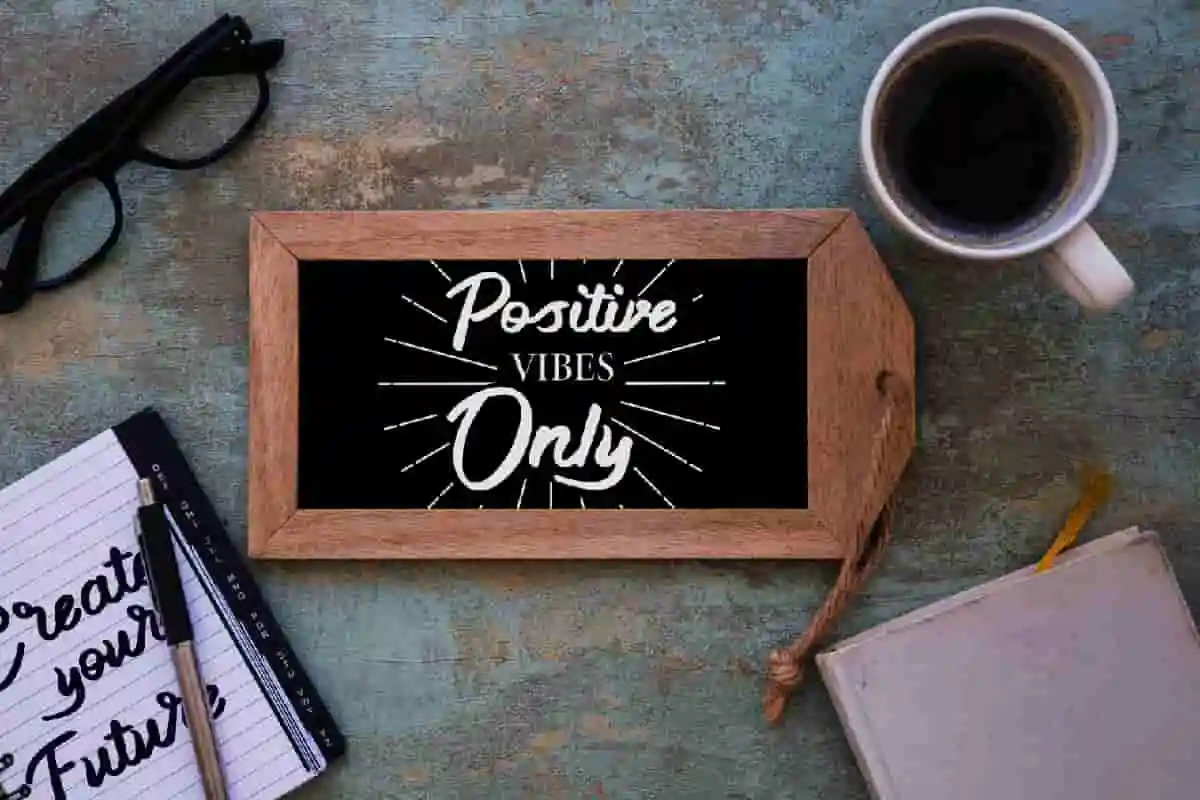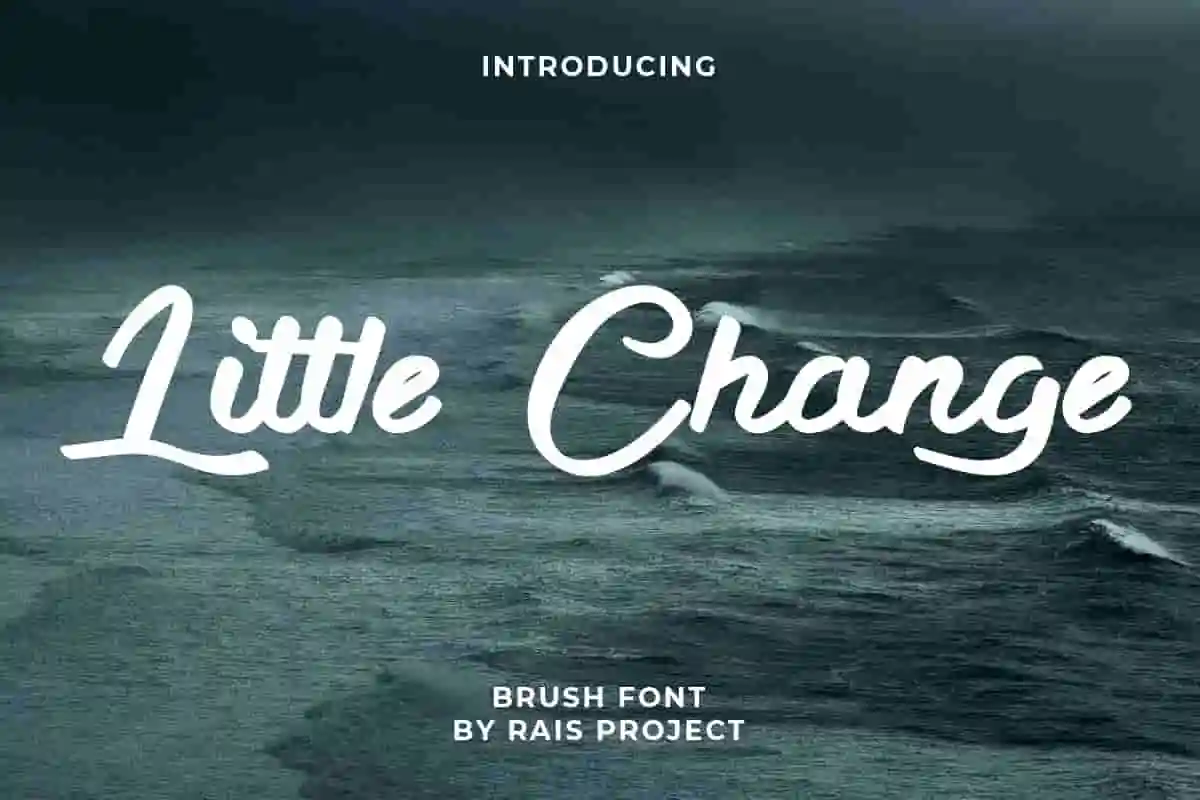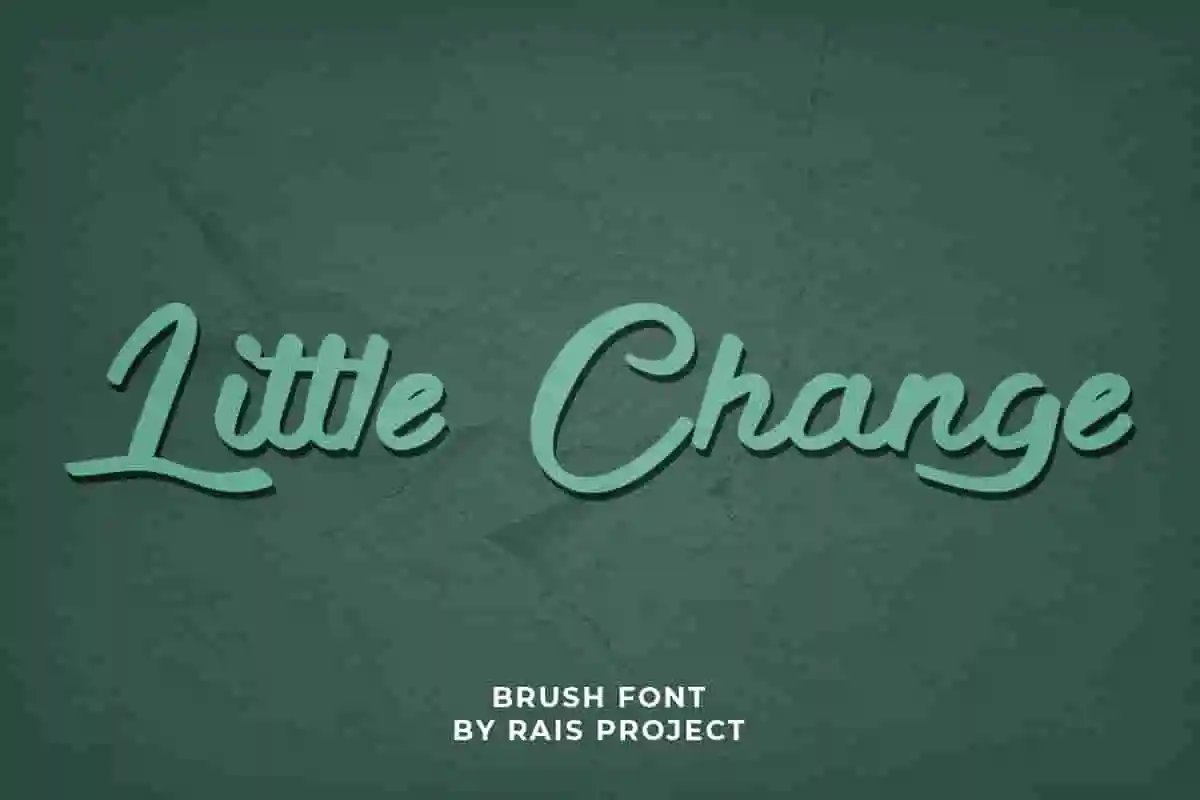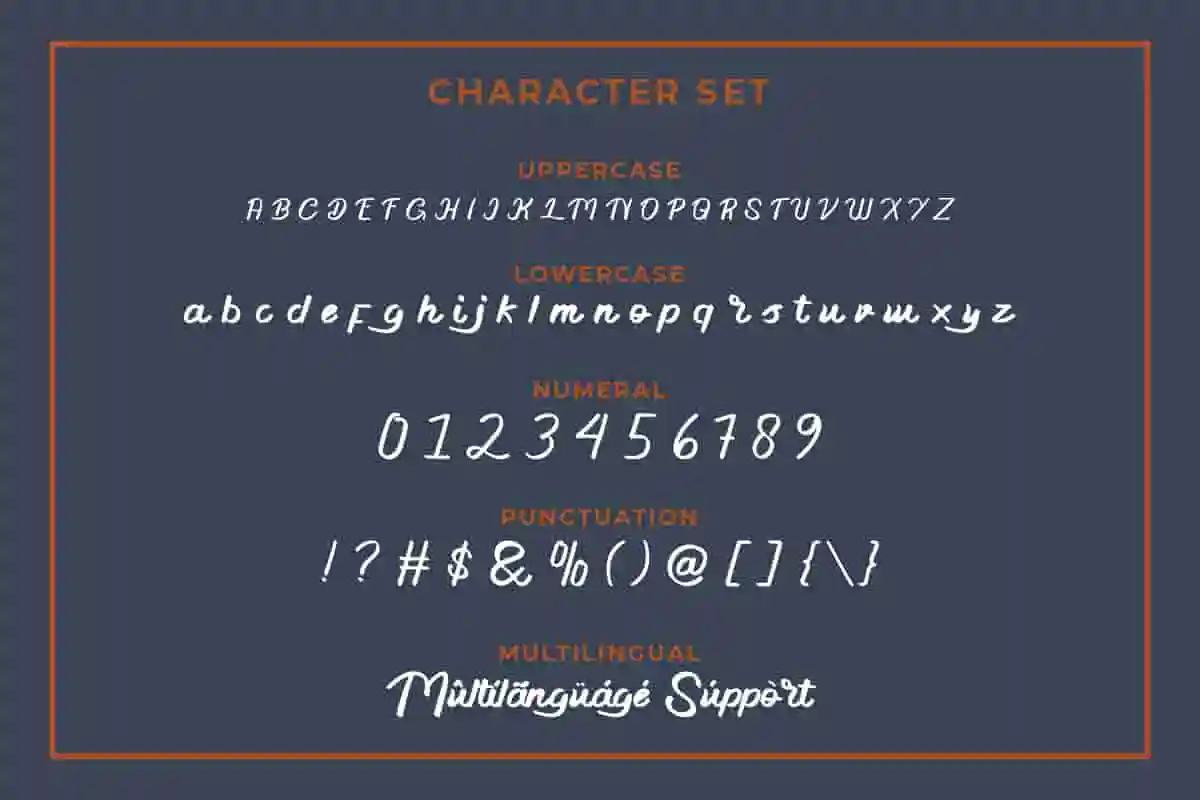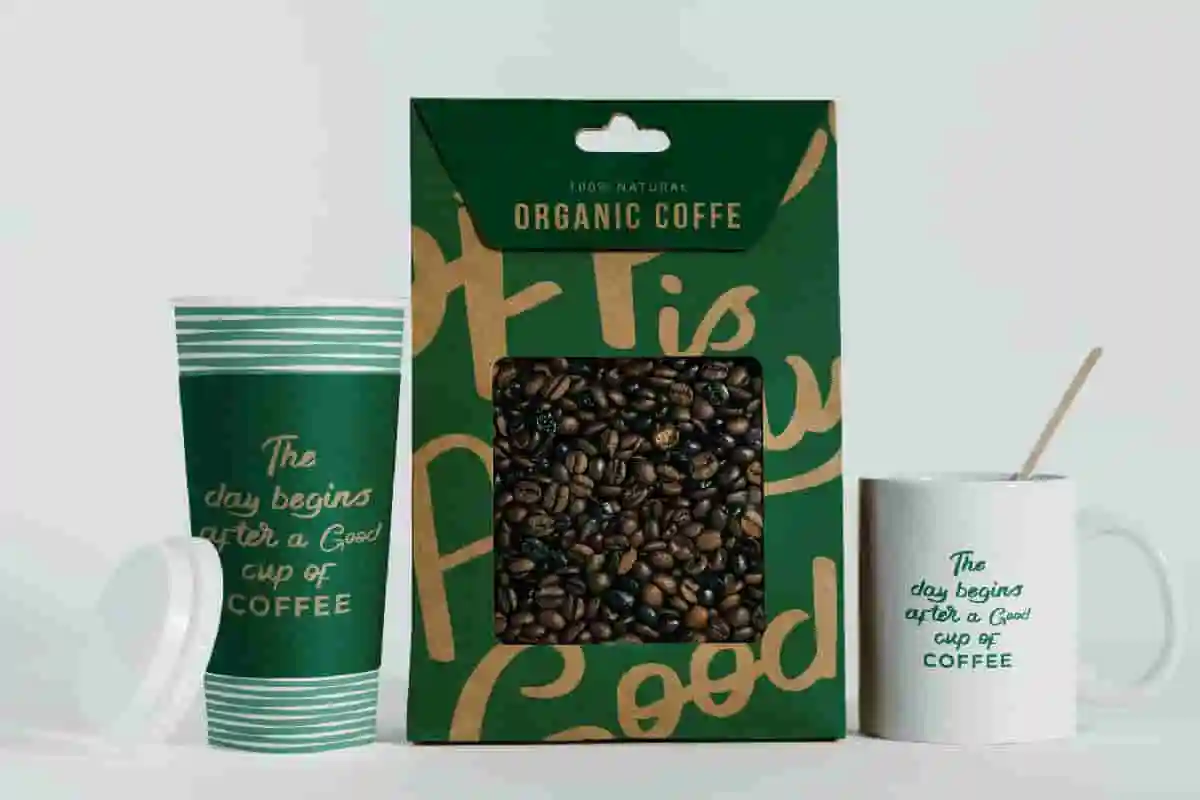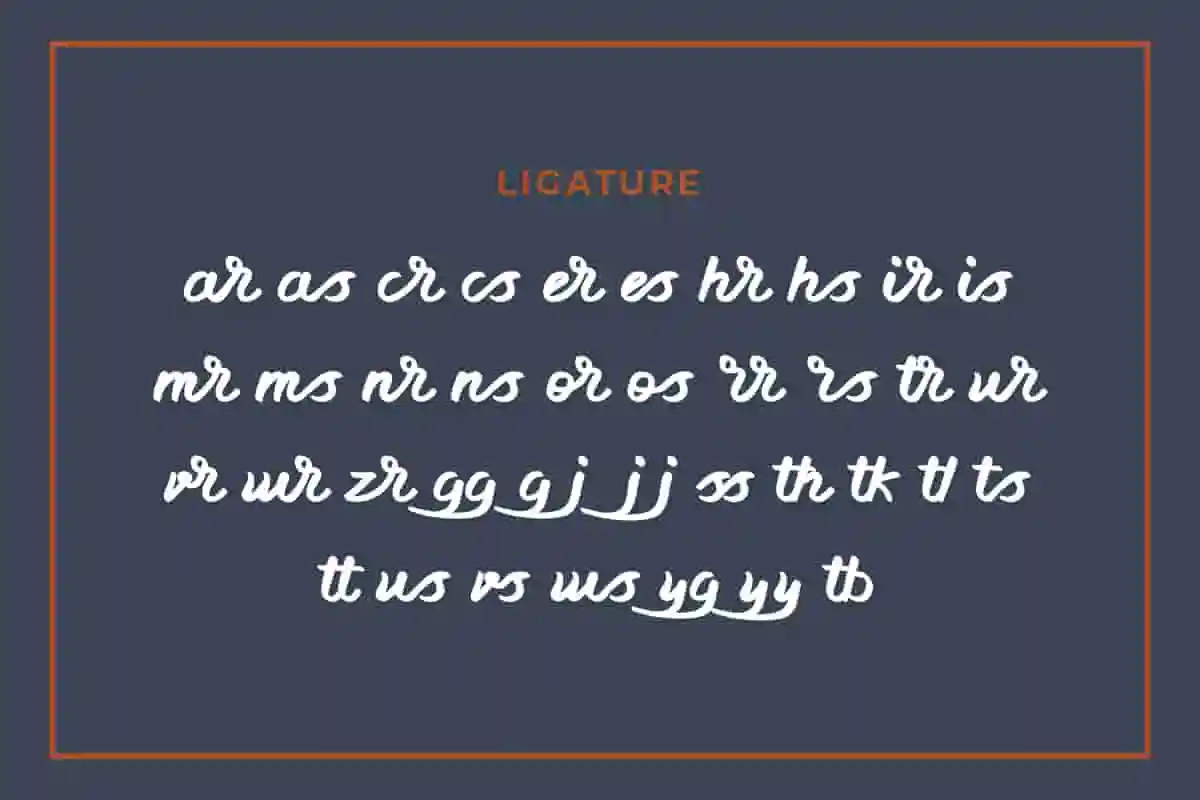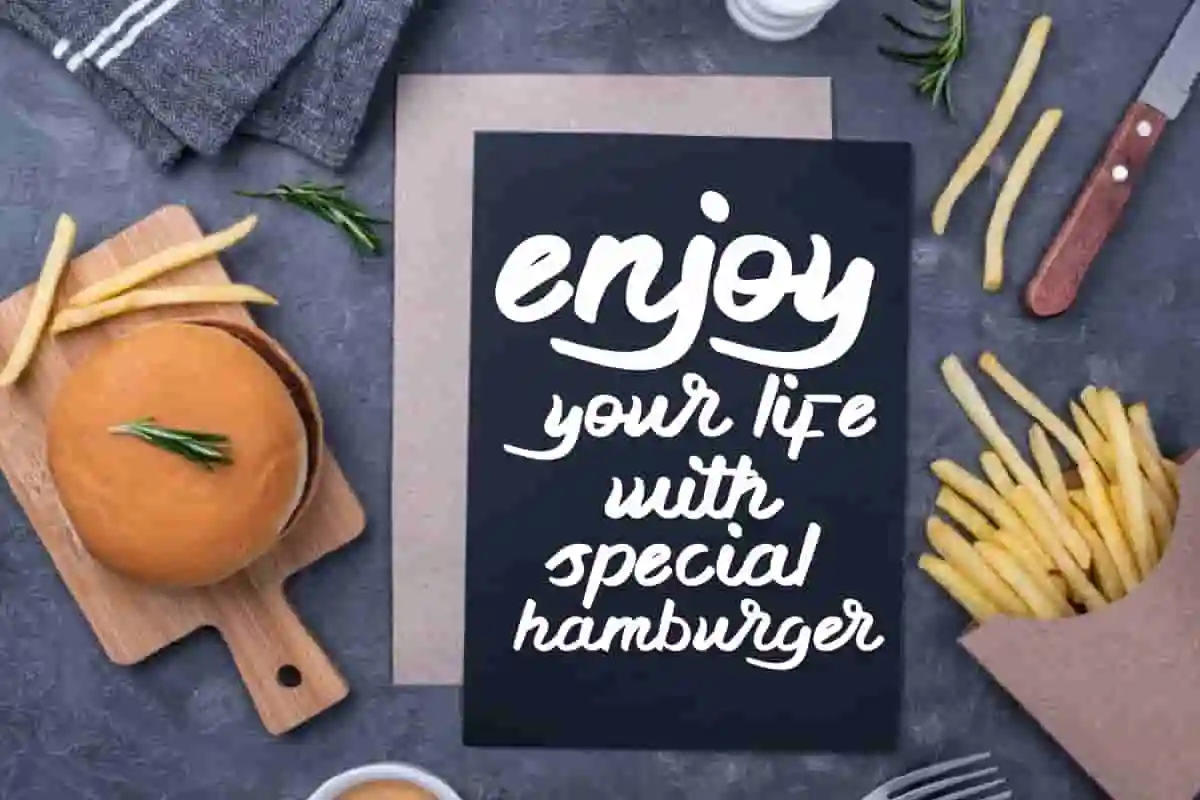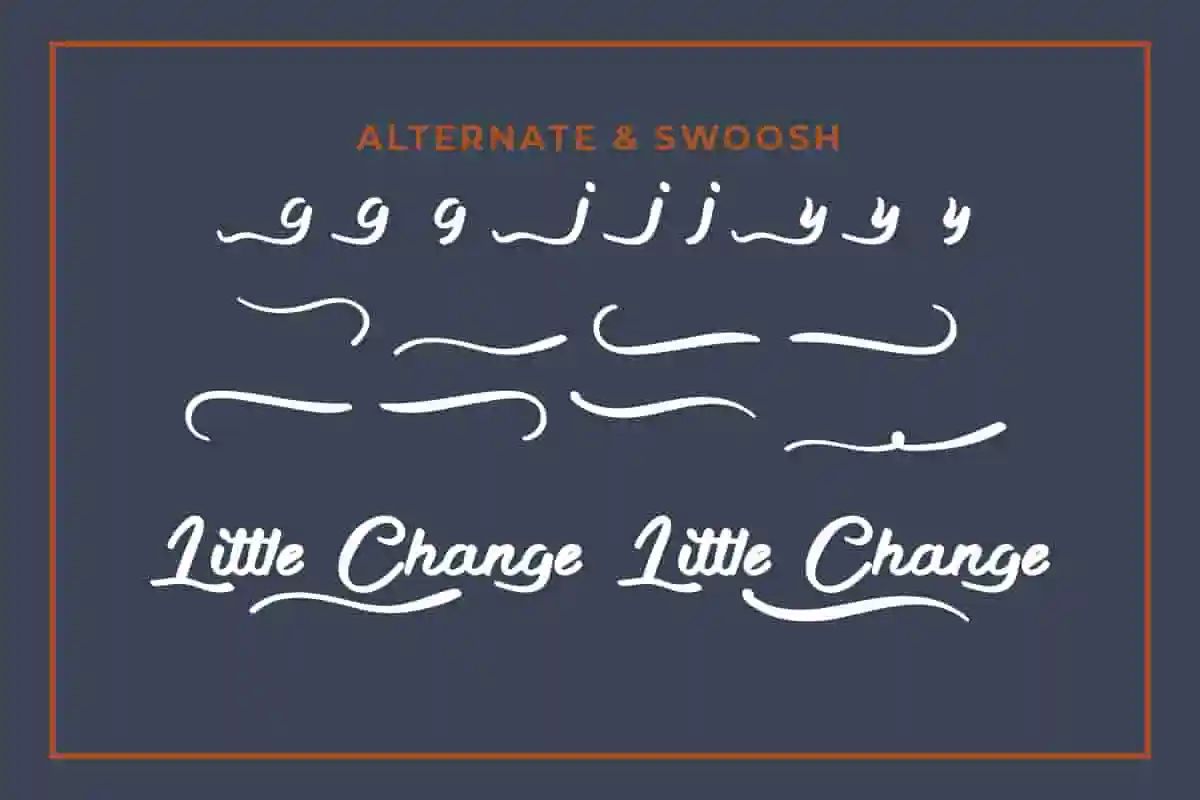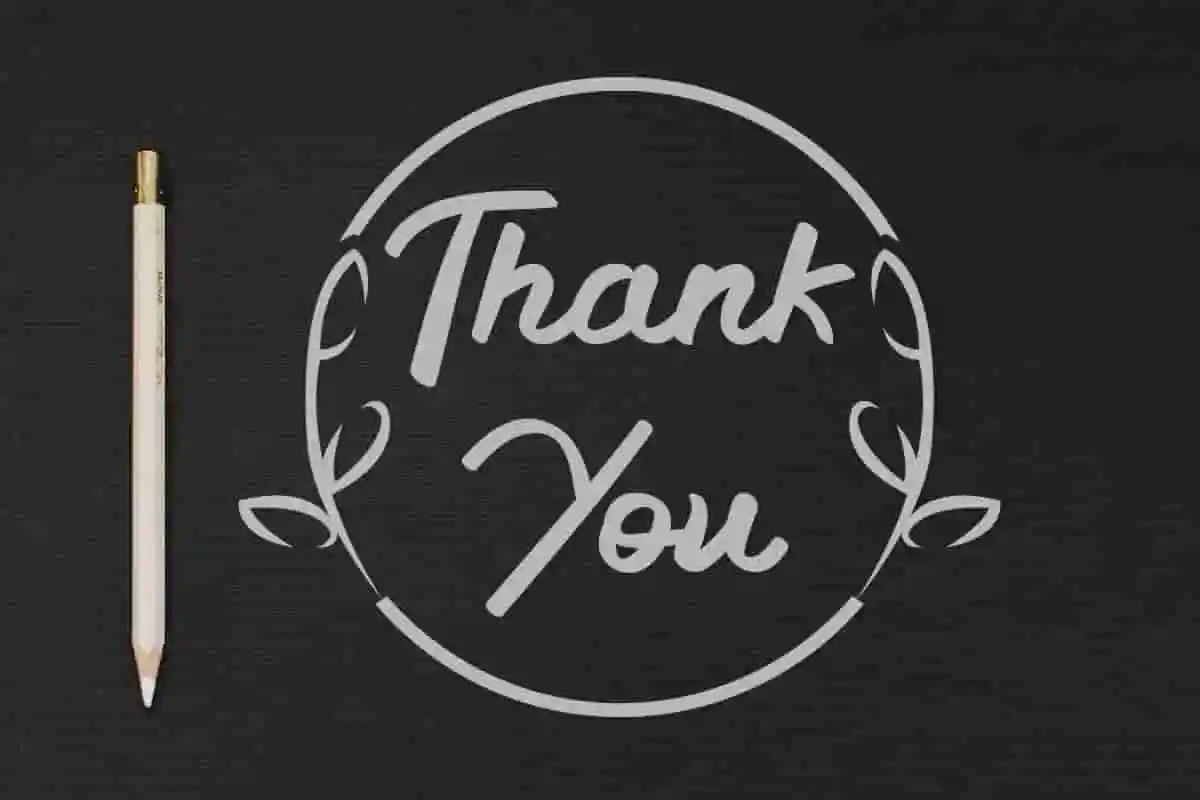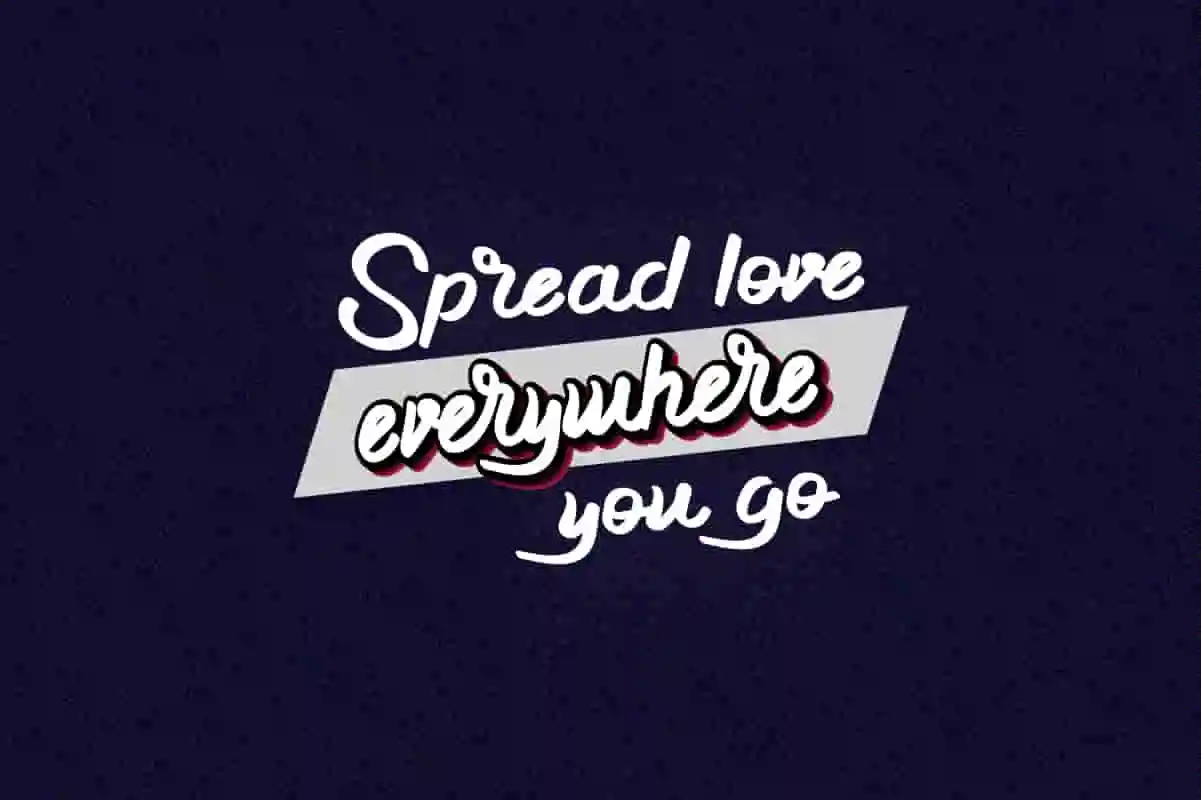
Little Change Font
Little Change Font is a beautiful handwriting brush font, designed by Rais Project. It is an elegant brush font with awesome texture that is great for any projects from wedding to sport, vintage, old style, wedding, Movie, Game, Magazine, Music, Video, outdoor, Racing etc
Little Change Font is a unique brush font with strong extreme style, suitable for sport, games, horror, movie etc. You can see the demo font below. You can also input any word you want so you can see what it will look like :
Little Change Font is remotely made in Bandung and Garut, Indonesia. The font was handcrafted for any your special projects including : headlines, promotion, events, branding, advertising, magazine, signage, invitation, stationery, social media posts, label, or and any projects that need unique strong style. The theme/industries of this font is Vintage, Horror, Movie, Game, Magazine, Music, Video, Sports, Racing etc
Little Change Font includes full set of uppercase letters, numerals, a large range of punctuation and ligatures. With a unique textured effect.